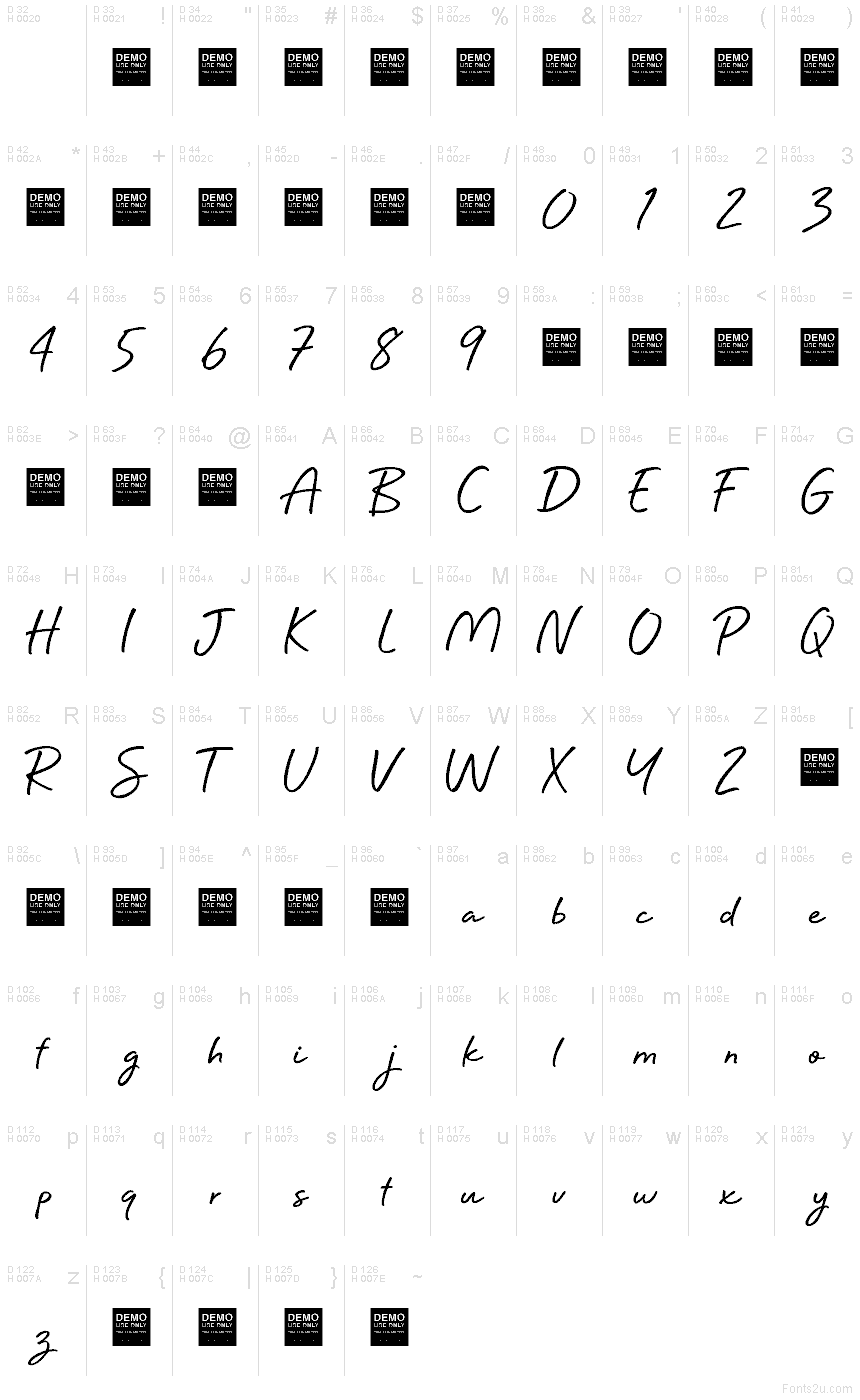
Mother Nature font by BLKBK Fonts is a free handwritten font that embodies a casual, elegant feel with its fluidity and natural flow. The hand-drawn appearance and relaxed elegance make this design distinguished from the rest. If you admire nature and are proud of your work as an artist, this one is for you!
A few things that could benefit from Mother Nature’s beauty include book covers, packaging designs, album covers, social media posts, etc. Branding related to cosmetics or clean energy use could also be great places where the unique letters get featured. Other possible ideas include t-shirts/pillow prints, magazine headlines or even company logo designs!